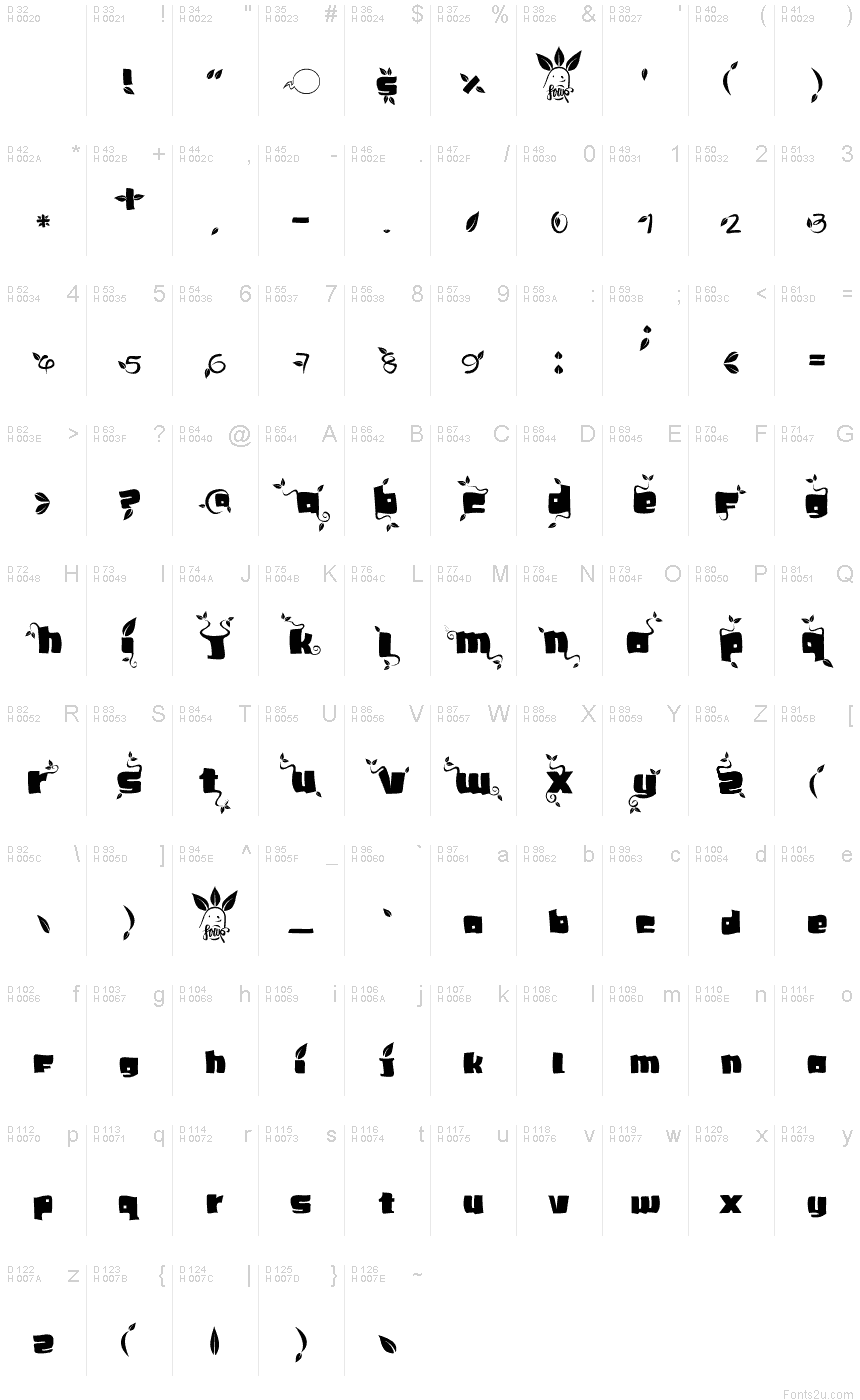
SoupLeaf, created by Nic Ripz, is a free organic cartoon display font with broad, uneven letterforms. Rounded blocks bend like hand-cut shapes, with narrow gaps interrupting the dark strokes. Small leaf ornaments sharpen the playful, plant-inspired theme.
It is strongest on food packaging for soups, herbs, or natural snacks with an informal style. The lettering also suits children's posters and casual merchandise, where leafy details can become part of a garden or kitchen illustration rather than serving as neutral text.
SoupLeaf